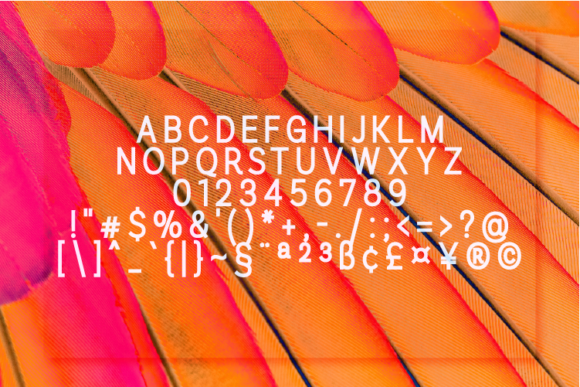
Introduction to Romanhuff Black Font
You know that moment when you’re working on a creative project and you just can’t seem to find the perfect font to tie everything together? You’ve tried a dozen different options, but nothing seems to capture the essence of your design. That’s exactly what happened to me, until I stumbled upon the stunning Romanhuff Black Font.
This all caps sans serif font is a game-changer for designers, offering a timeless and minimalistic look that’s perfect for layouts, headers, and web designs. With its high quality and versatile design, it’s no wonder that Romanhuff Black Font has become a valuable resource for creatives. Whether you’re working on a free download project or a commercial design, this font is sure to elevate your work to the next level.
Key Features of Romanhuff Black Font
- High-quality font with a unique, bold design, ideal for creative projects requiring a strong visual impact.
- Designed to be highly legible, even at small font sizes, making it perfect for titles, headings, and other text-heavy elements.
- Perfect for designers, artists, and creatives working on various projects, from graphic design to digital art.
Honest Review: Romanhuff Black Font
I recently stumbled upon the Romanhuff Black Font and I must say it’s a fantastic addition to any designer’s toolkit. This free download is perfect for any creative project that requires a bold and eye-catching font.
- High-quality design: The Romanhuff Black Font is designed to deliver a professional and high-quality look, making it perfect for a wide range of applications.
- Customizable: The font is highly customizable, allowing designers to adjust the style to fit their specific needs.
What works well: ✨ The font is incredibly versatile and can be used in a variety of settings, from corporate branding to creative projects. The bold and sleek design is sure to grab attention and leave a lasting impression.
Limitations: ⚠️ The font is only available in a limited range of sizes, which may limit its use in certain applications. Additionally, some users may find the font to be a bit too bold for certain designs.
Overall, I’m impressed with the Romanhuff Black Font and I would definitely recommend it to designers looking for a high-quality, free download.
Tips for Getting the Most Out of Romanhuff Black Font
Romanhuff Black Font is ideal for use in titles, headings, and other prominent design elements. It’s a high-quality design resource that can elevate the look of your creative project. Use it to add a touch of sophistication and elegance to your design.